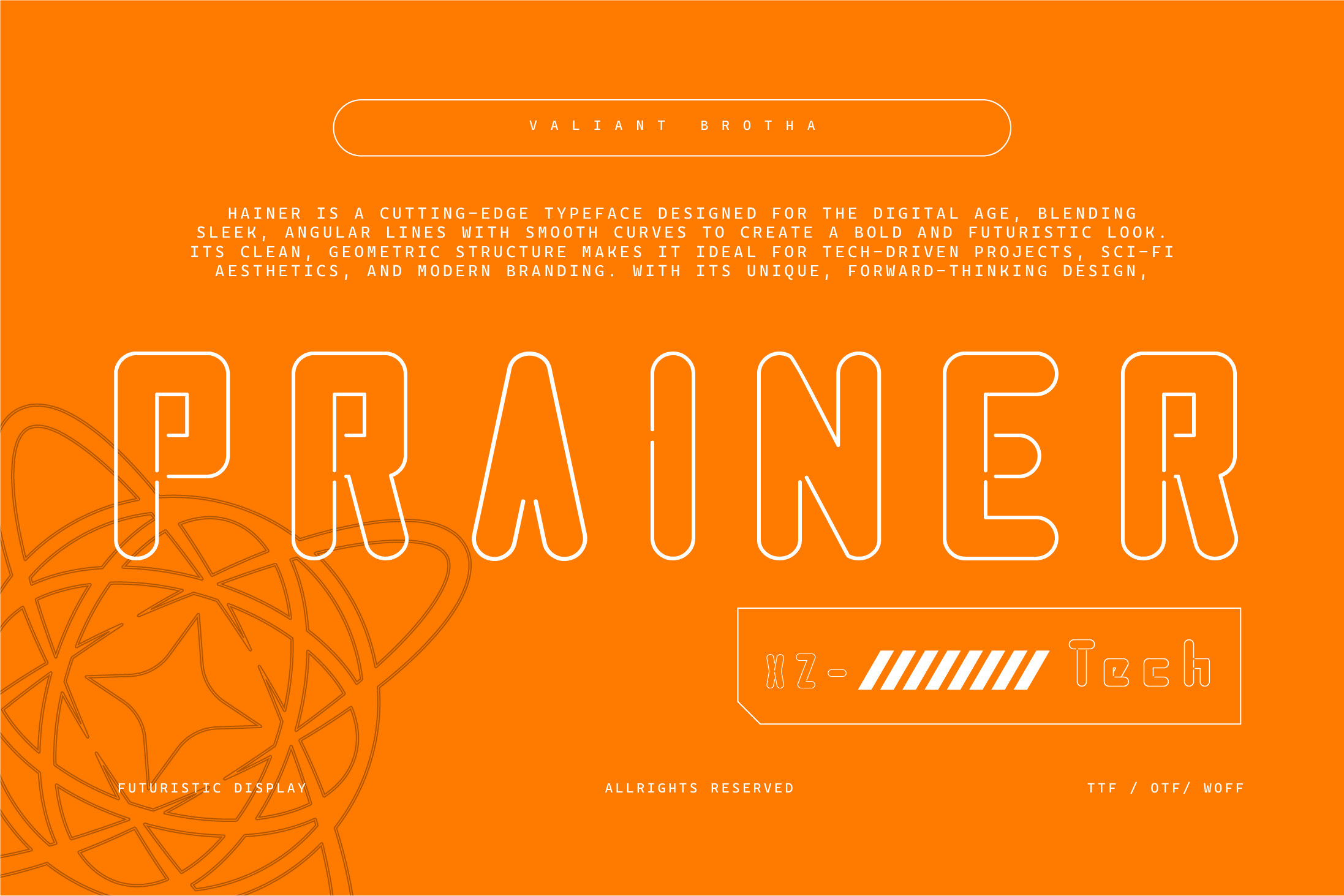
VB Prainer - Futuristic Display Font
Prainer Font is a sleek, modern typeface with a futuristic vibe. Its characters are sharp, clean, and highly geometric, giving it a technological and minimalist feel. It's perfect for designs that aim to create a modern or even sci-fi aesthetic.